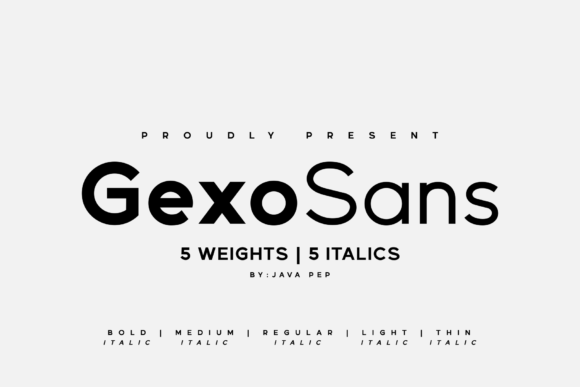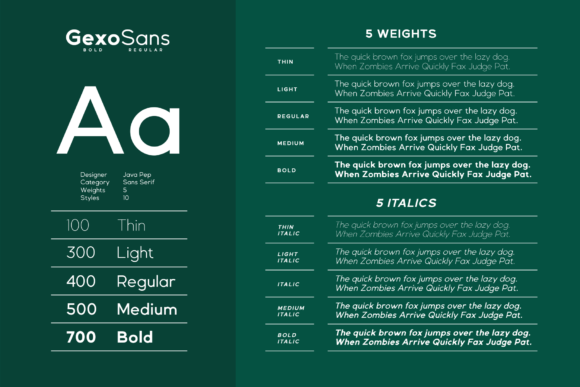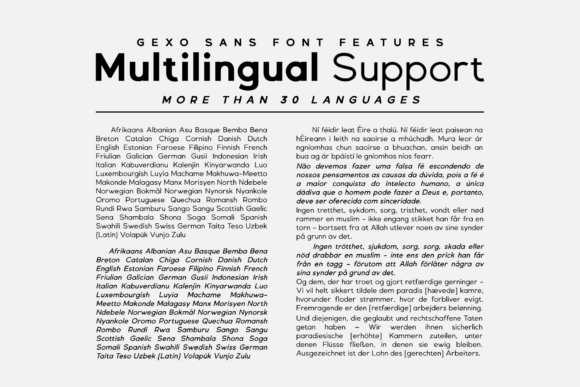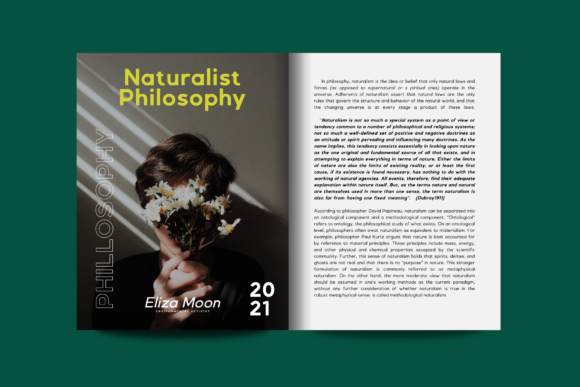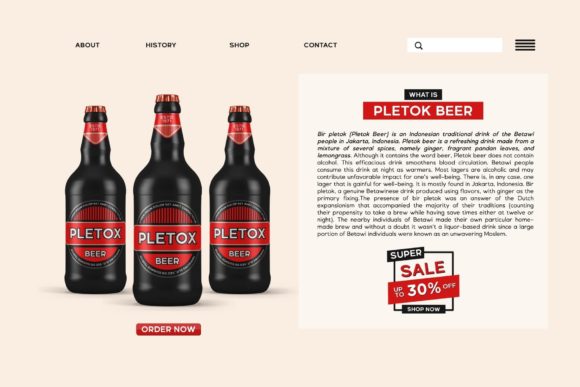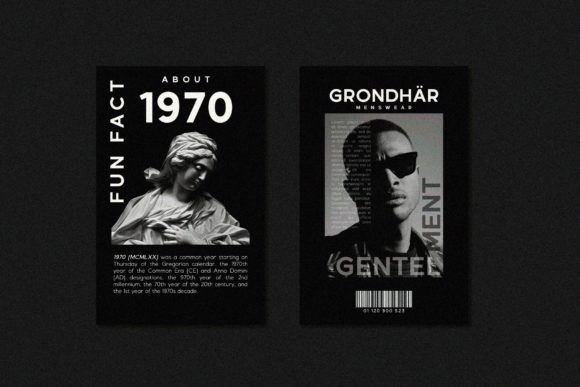
Gexo Sans Font: Elevate Your Designs with a Minimal and Neat Sans Serif Font
In the world of typography, a good font can make all the difference in elevating your designs to the next level. If you’re a designer or crafter looking for a versatile and stylish font to add to your toolkit, look no further than Gexo Sans. This minimal and neat sans serif font is perfect for a wide range of projects, from branding and advertising to packaging and digital media.
The Characteristics of Gexo Sans
Gexo Sans is a sans serif font, which means it doesn’t have the small lines or flourishes that are characteristic of serif fonts. This gives it a clean and modern look that’s perfect for designs that need to be sleek and sophisticated. The font is also highly legible, making it easy to read in a variety of contexts.
One of the standout features of Gexo Sans is its minimalism. The font has a very simple and uncluttered design, which makes it highly versatile and easy to pair with other design elements. Whether you’re using it for a logo, a headline, or body text, Gexo Sans is sure to make a big impact.
The Benefits of Using Gexo Sans
So why should you choose Gexo Sans for your next design project? Here are just a few benefits of using this amazing font:
- Versatility: Gexo Sans is a highly versatile font that can be used in a wide range of projects, from digital media to print materials.
- Legibility: The font is highly legible, making it perfect for body text and other applications where readability is key.
- Modern look: Gexo Sans has a clean and modern look that’s perfect for designs that need to be sleek and sophisticated.
- Ease of use: The font is easy to use and pair with other design elements, making it a great choice for designers of all skill levels.
How to Use Gexo Sans in Your Designs
So how can you use Gexo Sans in your designs? Here are a few ideas to get you started:
- Branding: Use Gexo Sans as a logo font or for branding materials like business cards and letterheads.
- Advertising: The font is perfect for headlines and ad copy, and can help your ads stand out from the crowd.
- Packaging: Gexo Sans is a great choice for packaging design, particularly for products that need to have a modern and sleek look.
- Digital media: The font can be used in digital media like websites, social media graphics, and email marketing campaigns.
Tips for Pairing Gexo Sans with Other Fonts
One of the best things about Gexo Sans is its versatility, and it can be paired with a wide range of other fonts to create a unique and stylish look. Here are a few tips for pairing Gexo Sans with other fonts:
- Contrast: Pair Gexo Sans with a serif font for a classic and elegant look.
- Similarity: Pair Gexo Sans with another sans serif font for a modern and cohesive look.
- Experiment: Don’t be afraid to experiment with different font pairings to find the one that works best for your design.
In conclusion, Gexo Sans is a minimal and neat sans serif font that’s perfect for designers and crafters looking to elevate their designs. With its clean and modern look, high legibility, and versatility, Gexo Sans is a great choice for a wide range of projects. Whether you’re working on a branding campaign, an advertising project, or a digital media design, Gexo Sans is sure to make a big impact. So why not give it a try and see how it can help take your designs to the next level?
- Minimal and neat sans serif font
- Highly legible and versatile
- Perfect for a wide range of projects, from branding to digital media
- Clean and modern look
- Ease of use and pairing with other design elements
By incorporating Gexo Sans into your design toolkit, you’ll be able to create stunning and effective designs that capture the attention of your audience and leave a lasting impression.